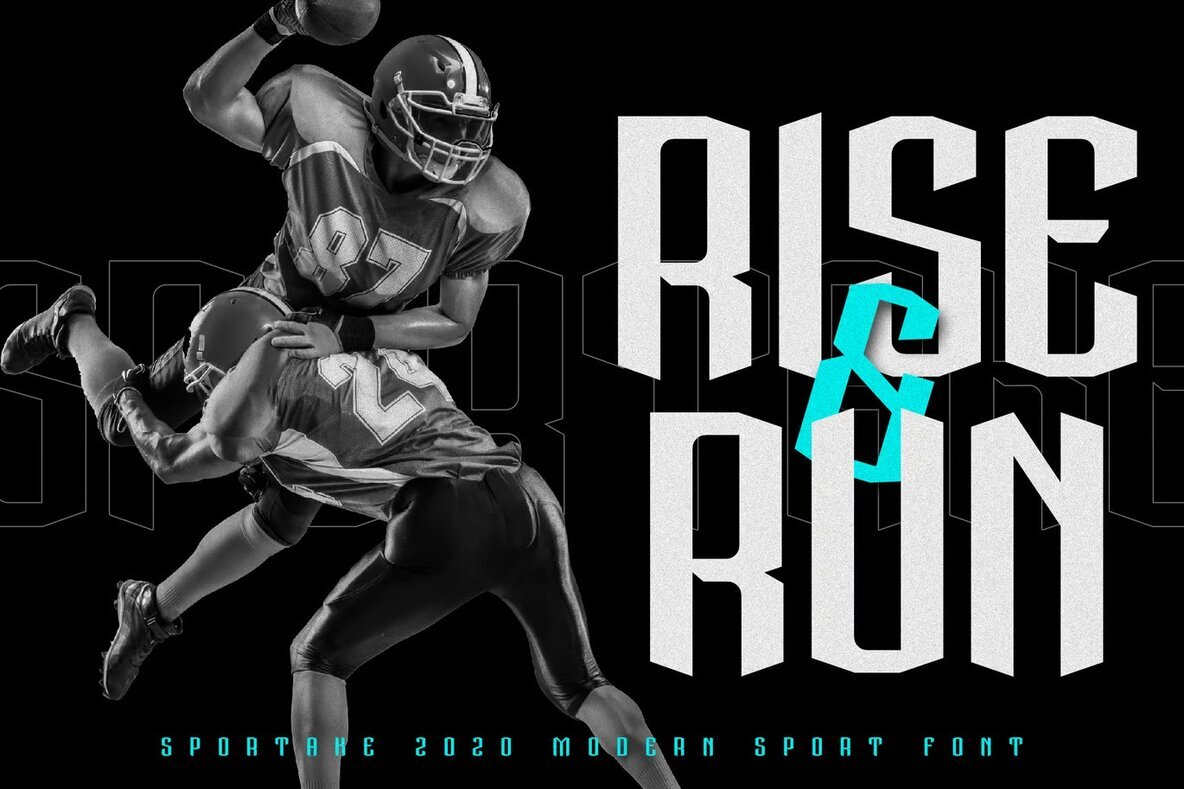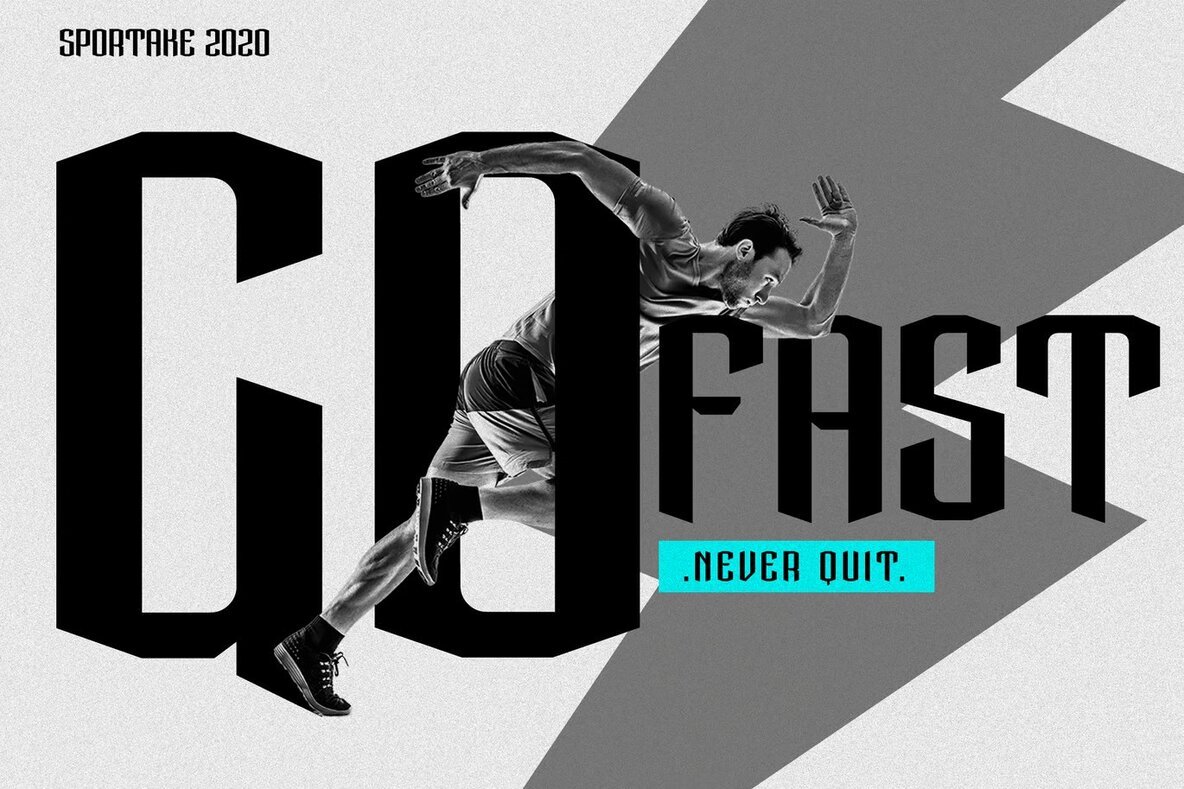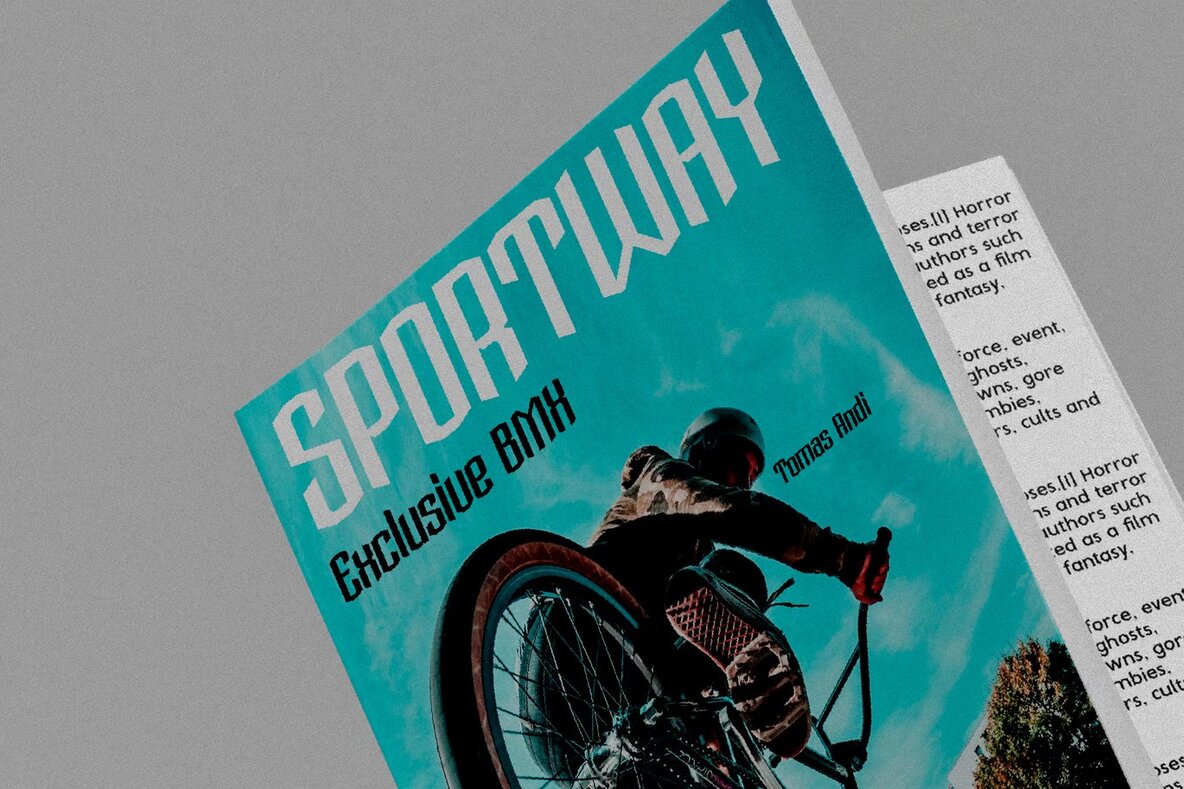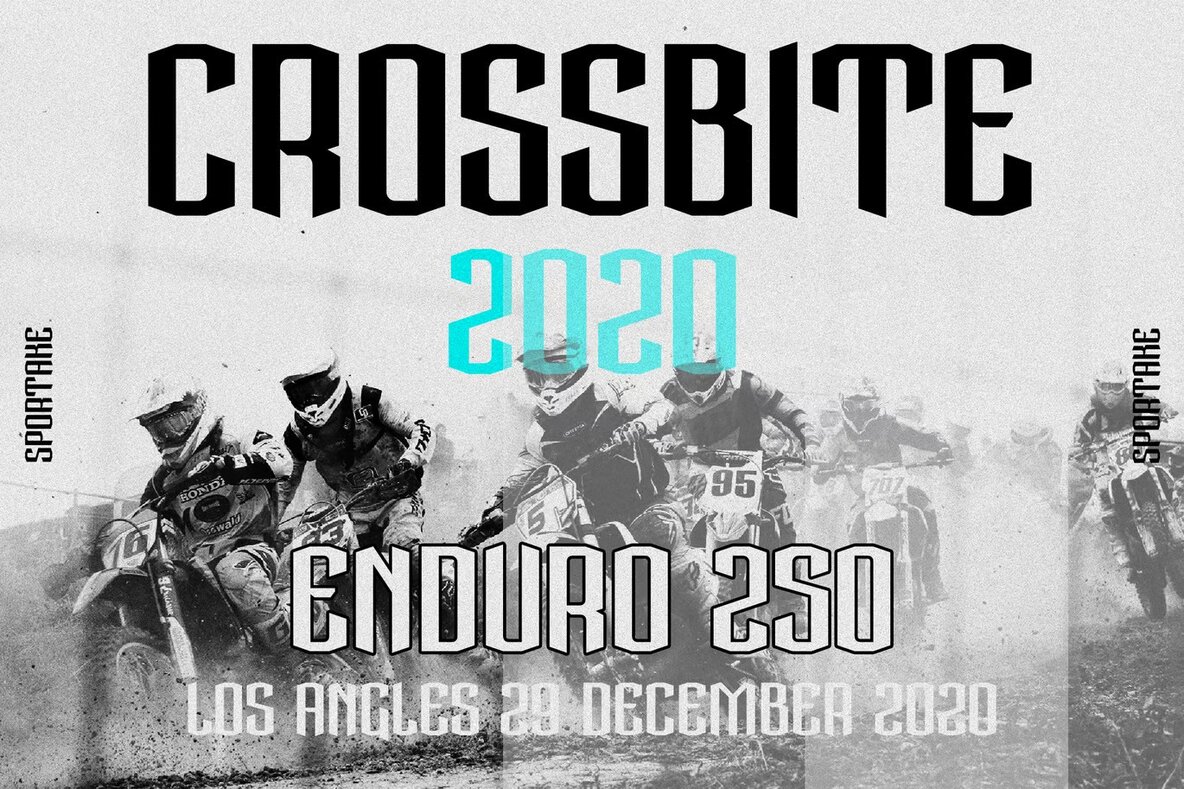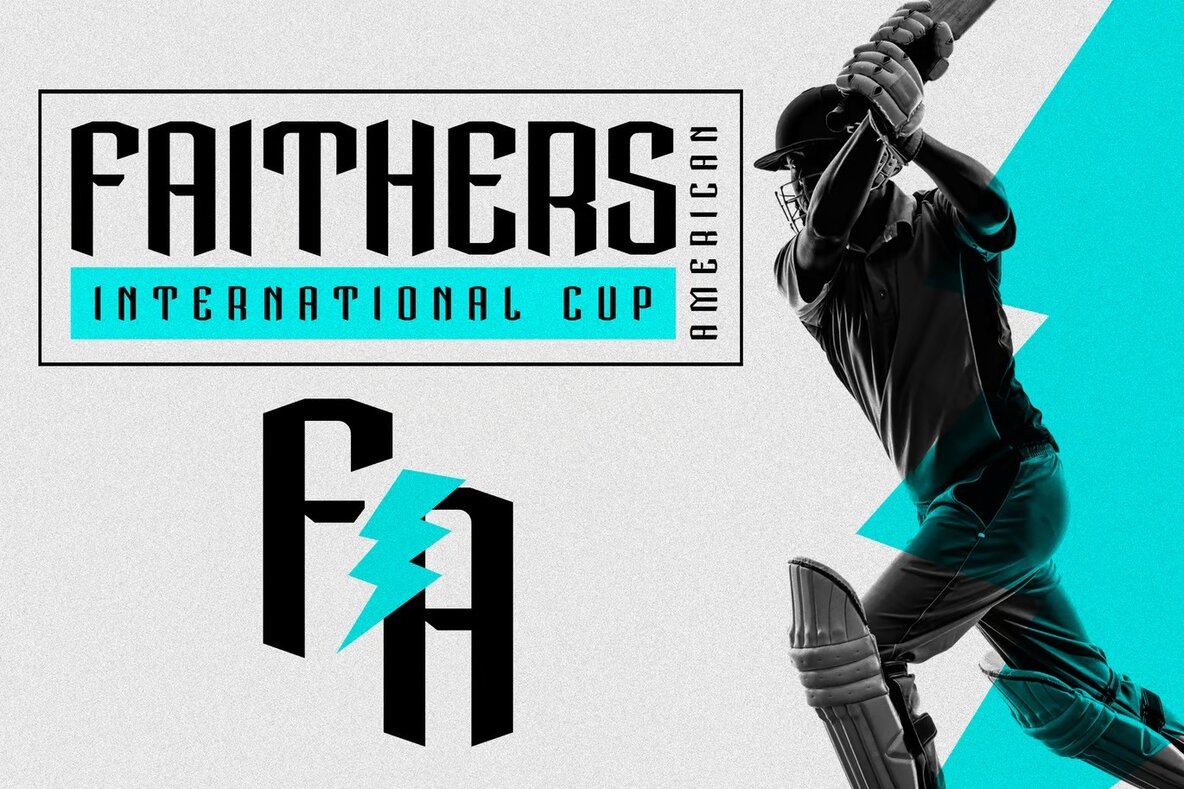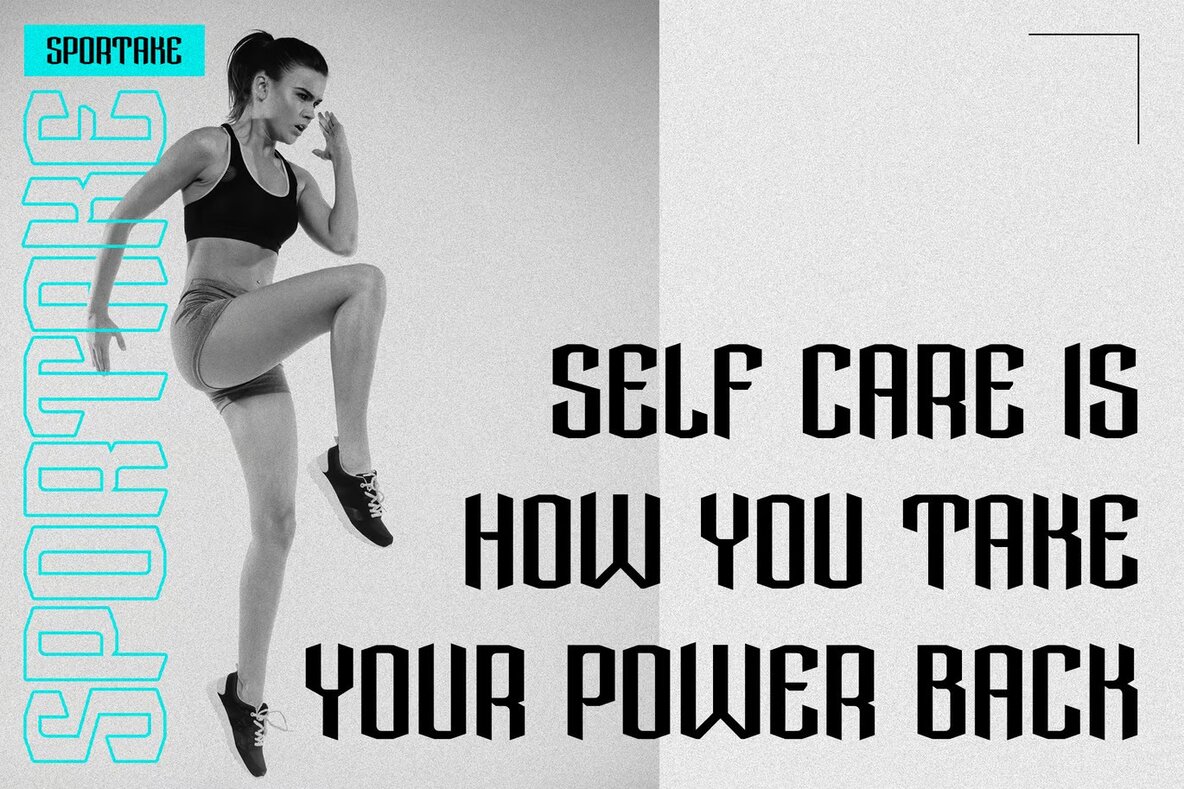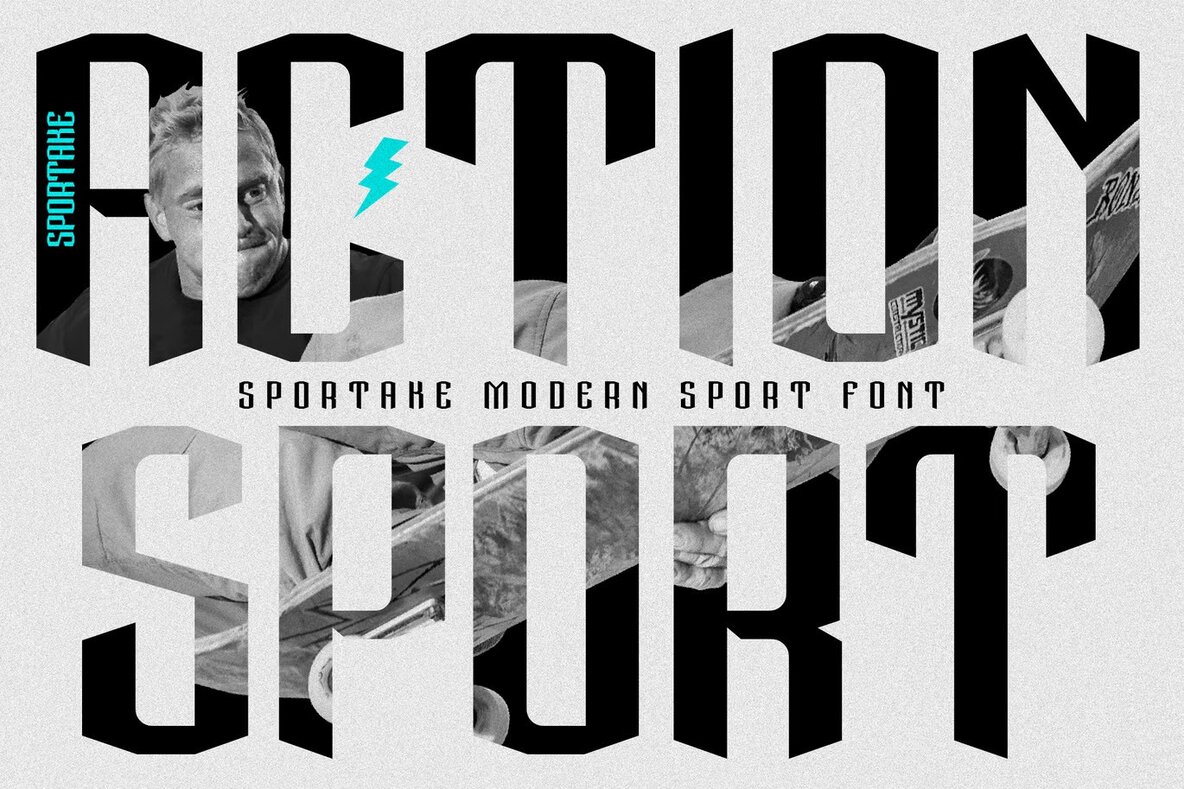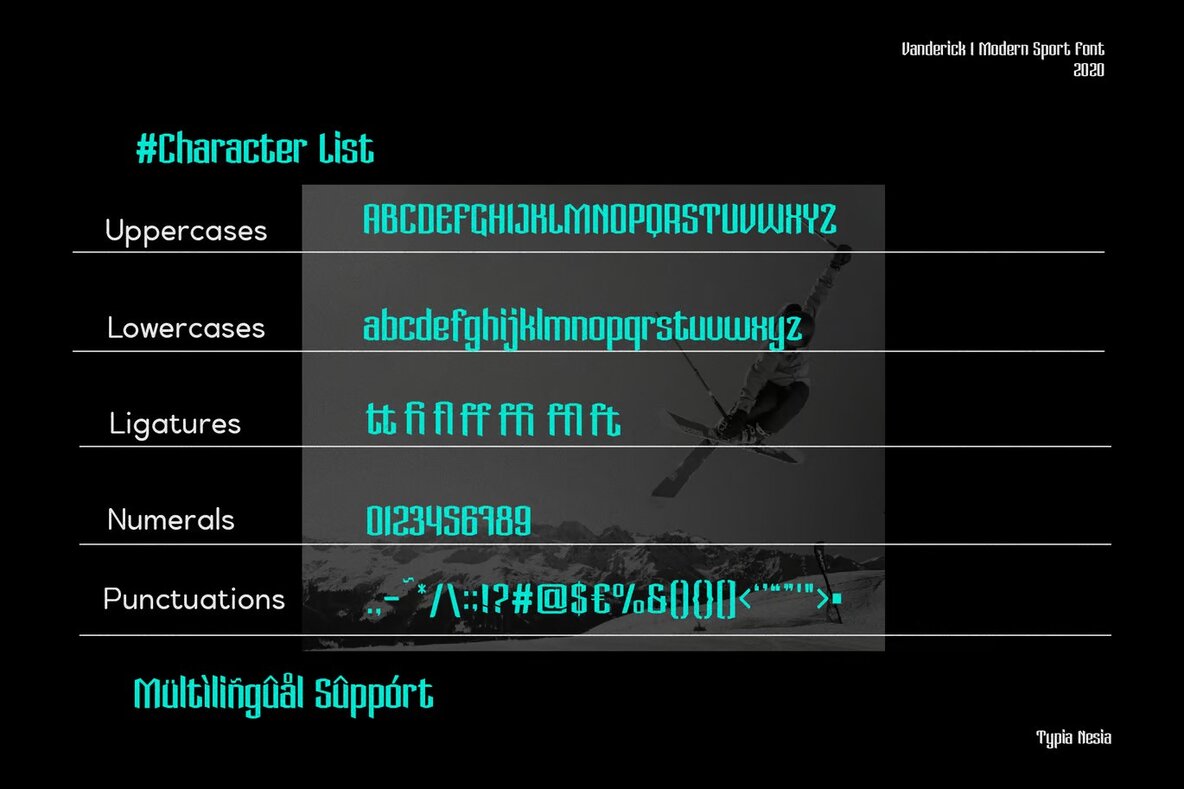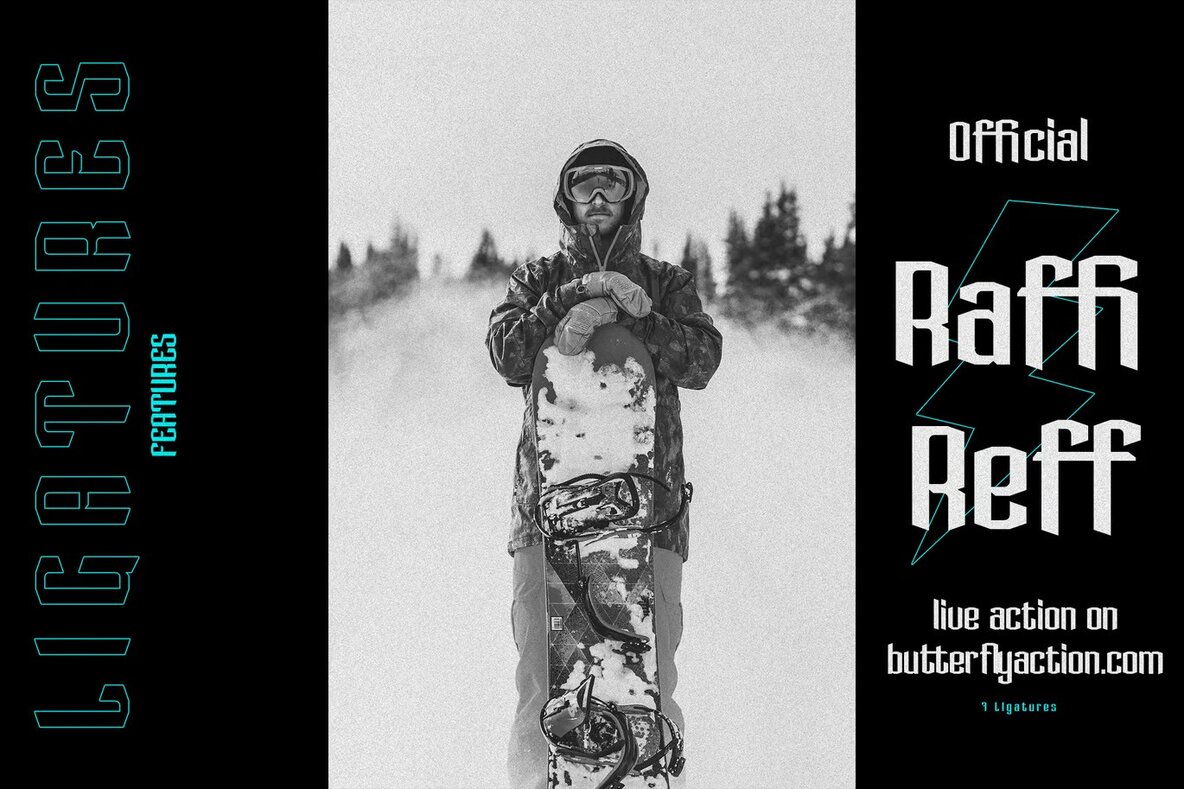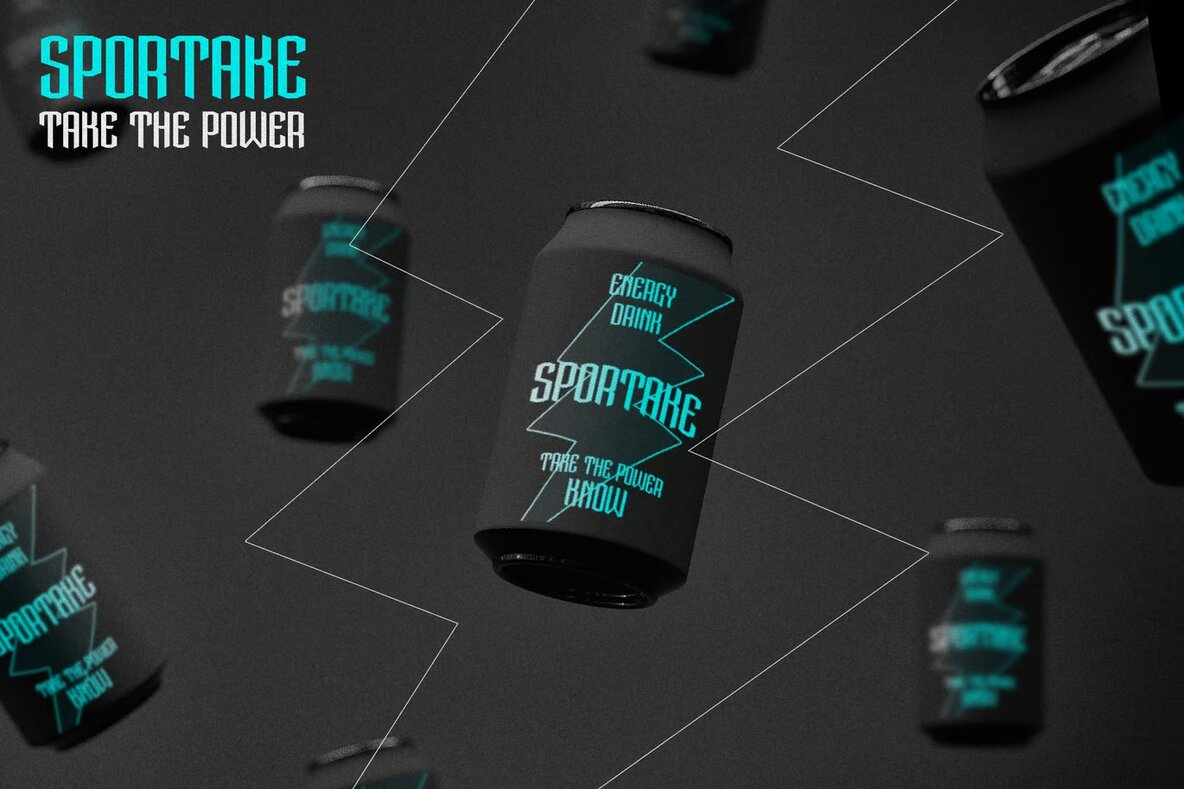
Sportake Font
Sportake is a sporty sans serif display font designed to bring a dynamic and contemporary feel to your projects. Ideal for logo branding, editorial design, and stationery, this font enhances designs with its bold presence. It's a perfect fit for the sports industry as well as for game industry applications, music posters, and modern advertising.
This black condensed sans serif is also suitable for creative uses such as blog design, card invitations, art quotes, and home decor. Its versatility extends to special event promotions and book covers or titles, offering a fresh look that stands out. Sportake is a reliable choice for designers looking to add a sporty vibe to their work without compromising on style and clarity.